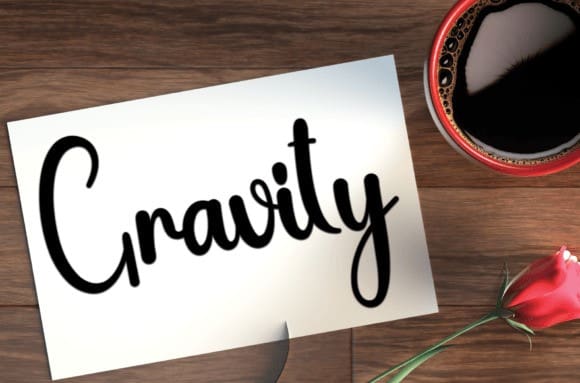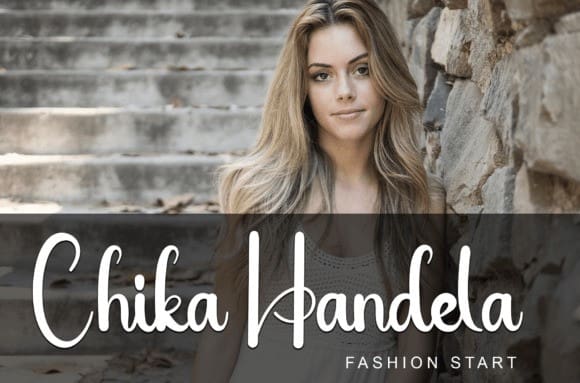
Roomline Script Font
Roomline Script Font is a fun and friendly handwritten font. Whether you’re using it for crafts, digital design, presentations, or creating greeting cards, this font has the potential to become your go-to font, no matter the occasion!